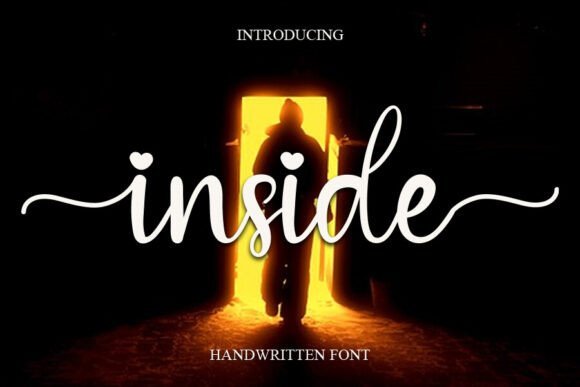
You know that moment when you’re brainstorming ideas for a new project and suddenly, a spark of inspiration hits you? You envision the perfect font, the perfect style, and the perfect atmosphere to bring your vision to life. For designers, this moment is what drives us to create something truly special. And, for those who crave a timeless yet modern aesthetic, the Inside Font is the perfect tool to unlock that creative potential.
Inside Font is a stylish handwritten font that exudes elegance and sophistication, perfect for adding a touch of class to any design project. Its impeccable form is inspired by the classic calligraphy of the past, making it a valuable addition to any designer’s toolkit. Whether you’re working on a branding project, a wedding invitation, or a marketing campaign, the Inside Font is sure to elevate your designs and leave a lasting impression.
Key Features of Inside Font
- Unique Characteristics: Inside Font features a unique, modern design with a blend of geometric and organic elements, making it perfect for contemporary and minimalist designs.
Inside Font Review
As a designer, I’ve had the opportunity to work with various font styles, and I must say that Inside Font is quite an interesting one. ✨ Its unique, hand-drawn feel gives it a touch of warmth and personality that can be quite appealing in certain contexts.
Here are some of the things that work well for Inside Font:
- ✨ The font’s imperfections and irregularities add to its charm, making it perfect for creative and artistic projects.
- ✨ It’s highly legible, even at smaller font sizes, which makes it a great choice for body text.
- ✨ The font’s versatility allows it to work well in both digital and print formats.
- ⚠️ The font may not be suitable for formal or corporate projects, as its casual feel may not fit with the desired tone.
- ⚠️ Some users may find the font’s irregularities distracting or difficult to read, particularly in situations where clarity is paramount.
- ⚠️ The font’s availability in a limited number of weights and styles may limit its usability in certain projects.
Overall, I think Inside Font is a great choice for designers looking for a unique and creative font solution. While it may not be suitable for every project, its charm and versatility make it a valuable addition to any font collection.
Getting the Most Out of Inside Font
Here are some tips to get the most out of Inside Font:
- Experiment with different font sizes and styles to create visually appealing text.
- Use Inside Font in combination with other fonts to create a unique and eye-catching design.
- Adjust the font color to match your brand or design theme.
Inside Font is perfect for:
- Creativity and self-expression.
- Graphic design and visual communications.